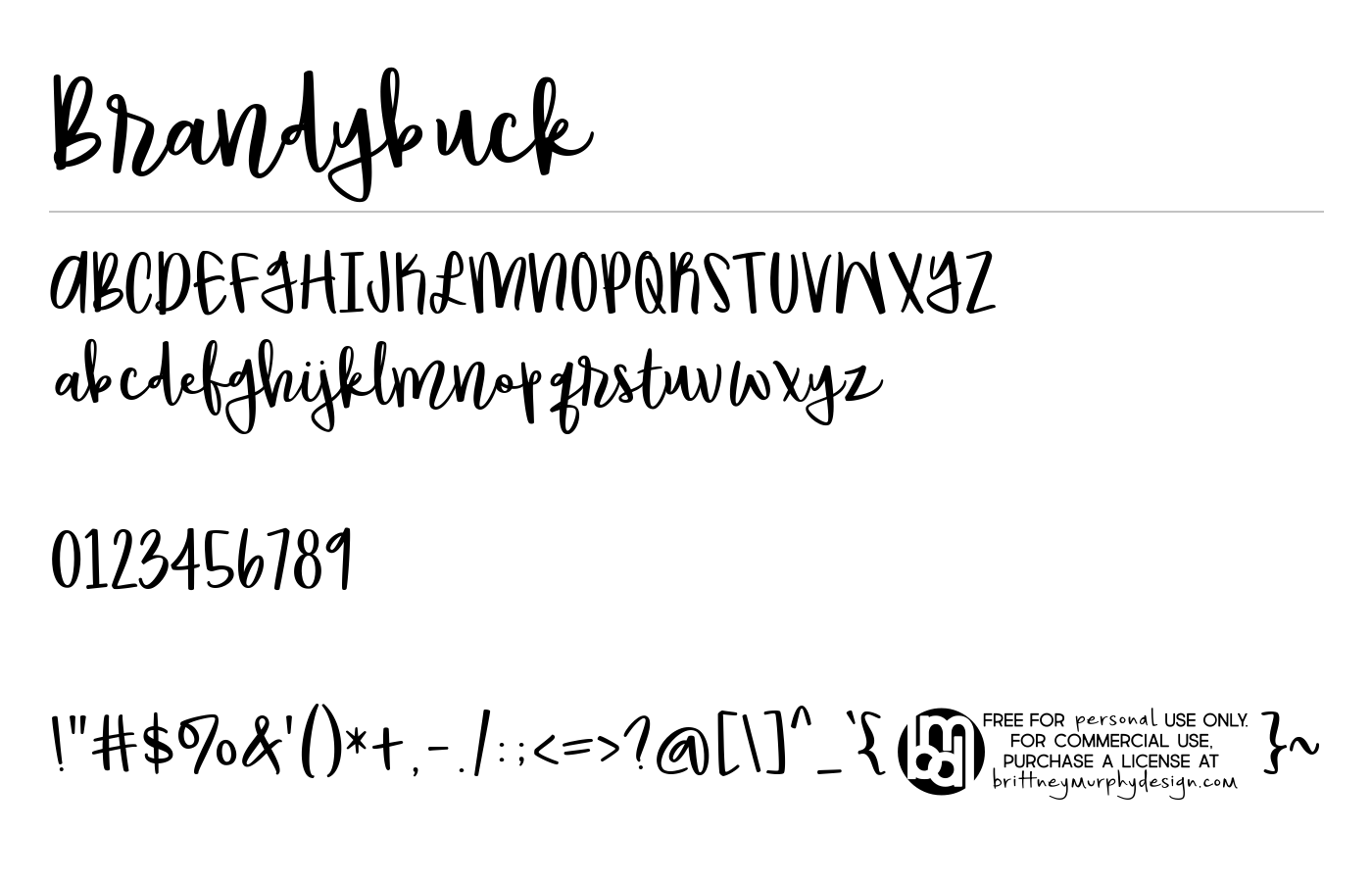
Brandybuck is a playful, handwritten script font with a casual and friendly vibe, featuring tall, narrow letterforms and smooth, flowing strokes that give it a lively and inviting character. Its upright style, moderate contrast, and quirky details make it perfect for personal projects, branding, and creative designs where a warm, approachable feel is desired. This font works well in headlines, logos, and social media graphics, adding a charming, handcrafted touch.